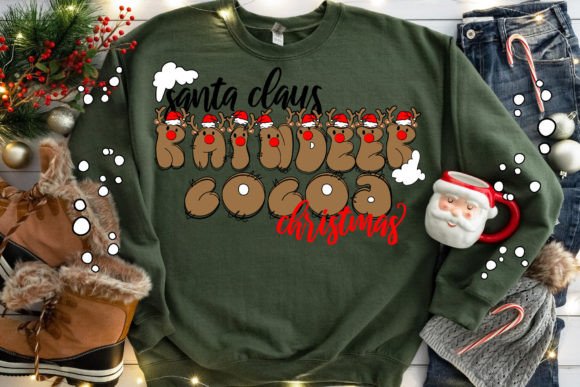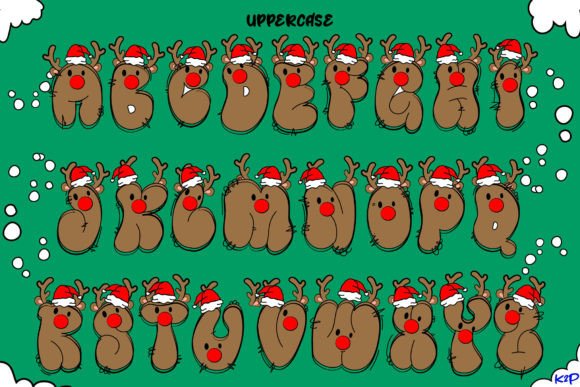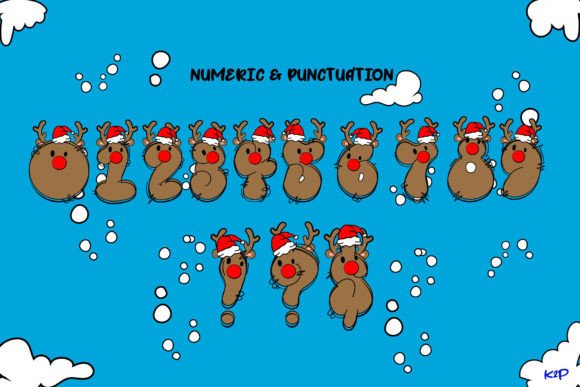
Introduction to Big Reindeer Font
Remember that moment when you’re working on a creative project and you just can’t find the right font to bring your idea to life? You’ve got your design all planned out, but that one element is missing – a font that’s bold, playful, and eye-catching. That’s where the Big Reindeer Font comes in – a high-quality, PUA-encoded font that’s perfect for adding a touch of whimsy to your designs.
With its thick, fun letters and vibrant colors, the Big Reindeer Font is a valuable resource for designers looking to create unique and engaging visual content. Whether you’re working on a holiday card, a party invitation, or a social media graphic, this font is sure to add a fun and festive touch. And with its transparent background and free download option, you can easily incorporate it into your design without any hassle.
Key Features of Big Reindeer Font
- High-quality design with transparent background, ideal for creative projects.
- Large character size and high resolution (300 DPI) for clear readability.
- Unique, festive design featuring reindeer characters, perfect for holiday-themed projects.
- Supports various languages, making it a versatile design element for international projects.
Honest Review: Big Reindeer Font
I recently had the chance to work with the Big Reindeer Font and I’m excited to share my honest review. As a designer, I appreciate high-quality fonts that make my creative projects stand out. The Big Reindeer Font definitely delivers on that front.
Here are some things that work well: ✨ The font is incredibly festive and perfect for holiday-themed projects. It’s also incredibly versatile, with a range of weights and styles to choose from. I appreciate the transparent background, which makes it easy to use on any design resource.
- High-quality design: The font is expertly crafted, with a focus on detail and a professional finish.
However, I do have a few limitations to note: ⚠️ While the font is incredibly festive, it may not be suitable for all design projects. Additionally, the weight and style options can sometimes feel a bit overwhelming, making it difficult to choose the perfect combination.
Overall, I’m really impressed with the Big Reindeer Font. It’s a fantastic addition to any designer’s toolkit and a great choice for creative projects that need a bit of holiday magic.
Tips for Getting the Most Out of Big Reindeer Font
For a high-quality design, use Big Reindeer Font in conjunction with other design resources. Experiment with different font sizes and styles to create a visually appealing design. Use the free download option to access the font and incorporate it into your creative project.
Big Reindeer Font is a versatile design resource that can be used for a variety of creative projects, including holiday cards, party invitations, and social media graphics. Its transparent background makes it ideal for use on images and videos. Whether you’re working on a design project or personal creative endeavor, Big Reindeer Font is a valuable design resource to have in your collection.